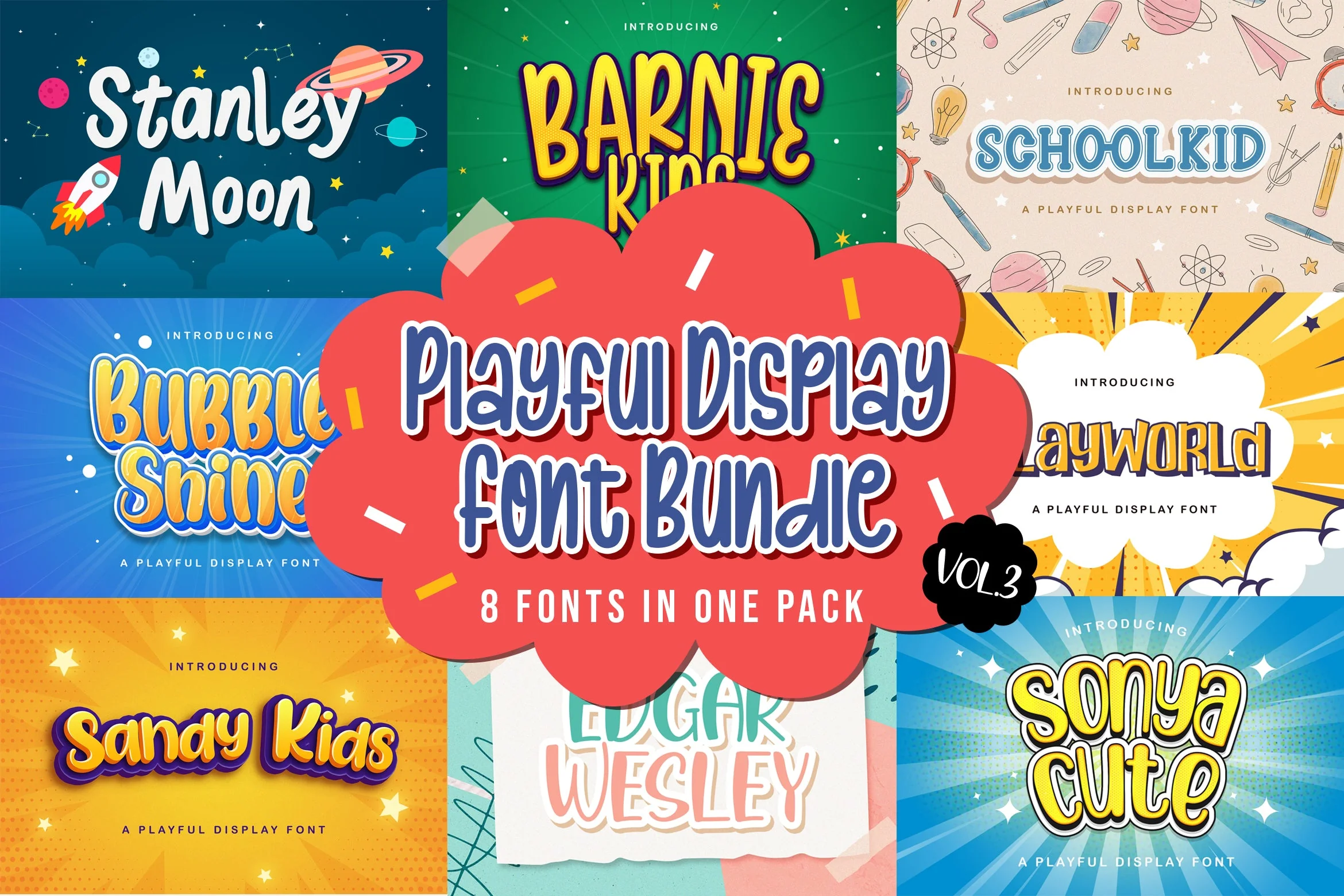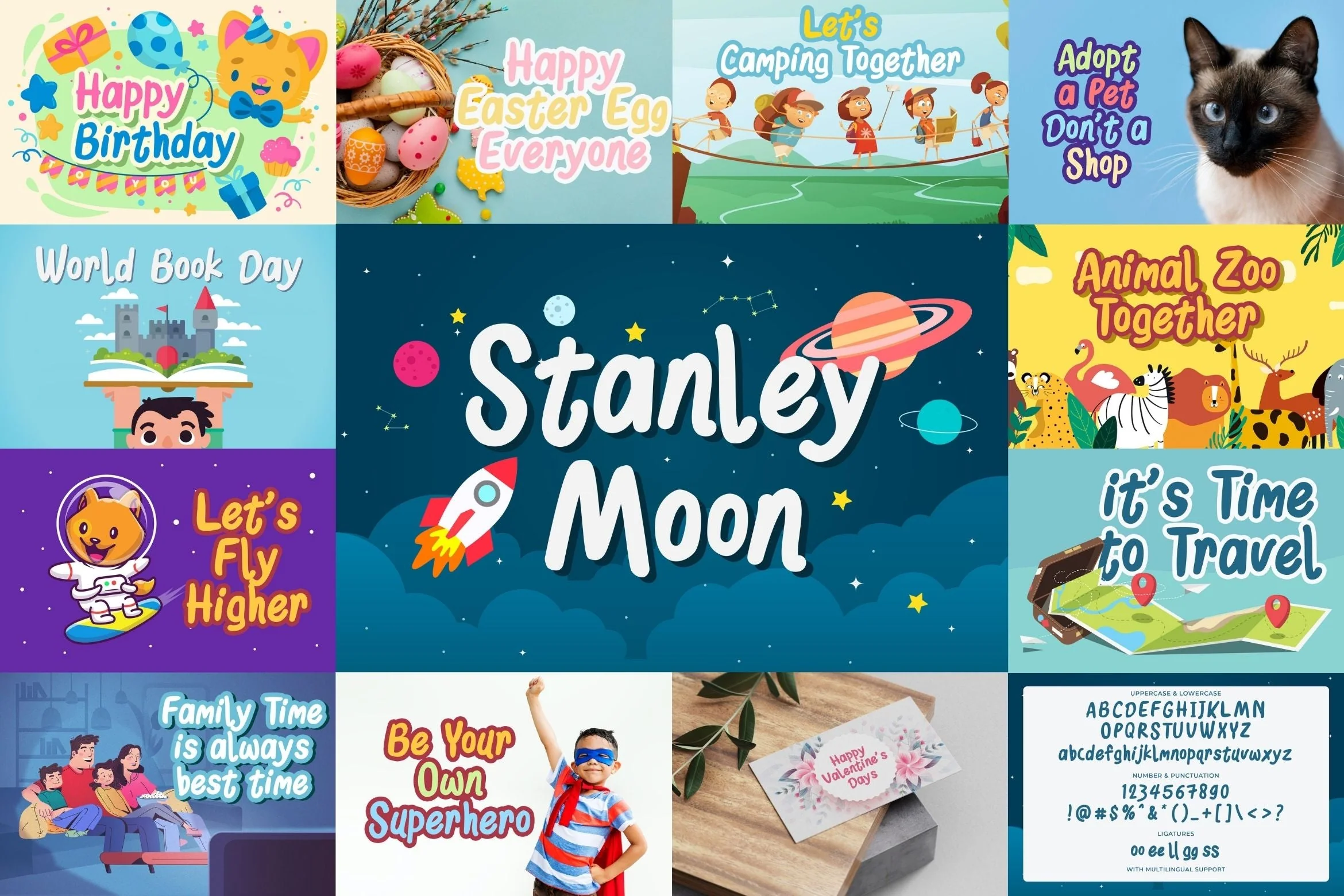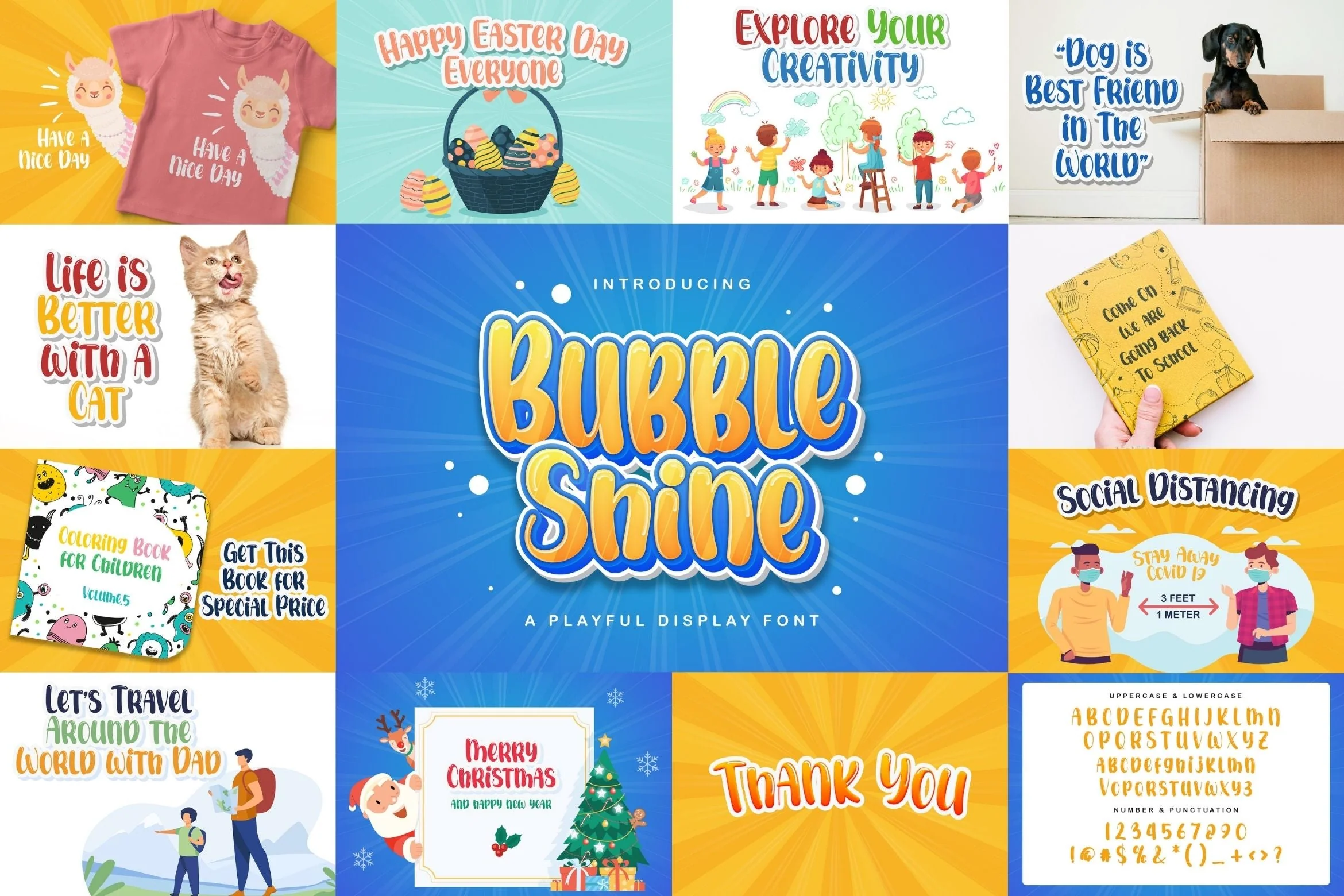
Playful Display Font Bundle Vol 3
Playful Display Font Bundle Vol 3 embodies fun, quirkiness and authenticity. This enchanting display font will turn any creative idea into a true standout.
This Display Font Bundle is a playful, and quirky font that contains 8 high quality fonts. Its friendly feel makes this font incredibly versatile, fitting a wide range of contexts. Get creative with its childlike playfulness, and use it to brighten up any kids and school project!
1. Sandy Kids
2. Bubble Shine
3. Barnie Kids
4. Edgar Wesley
5. Stanley Moon
6. Schoolkid
7. Sonya Cute
8. Playworld